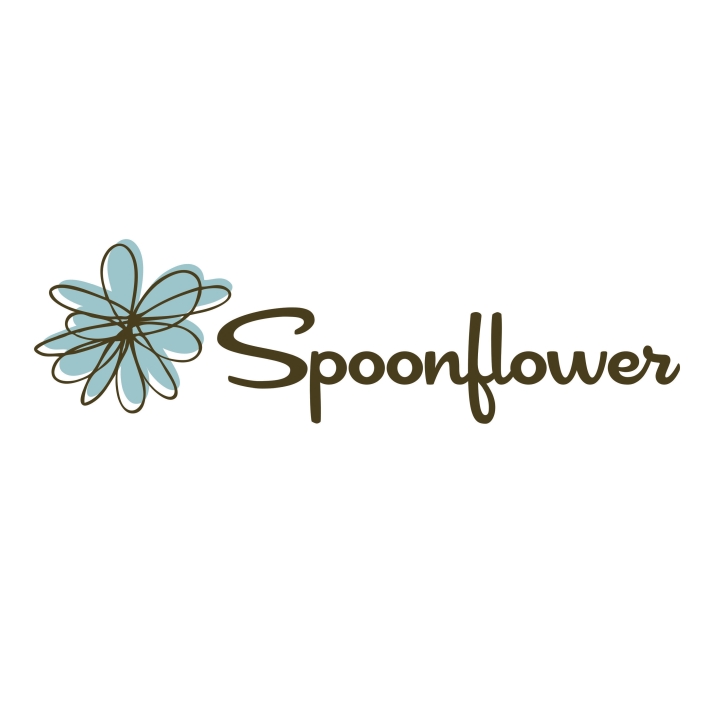
Spoonflower Logo Font
Fonts in UseSpoonflower is a digital printing company that specializes in producing custom fabric, wallpaper, and gift wrap. Customers can upload their own designs or choose from a variety of designs created by independent artists.
The Cocktail Shaker, a stylish and vintage connecting script font designed by Stuart Sandler, is featured in the company's logo. Further information about this font can be found here.